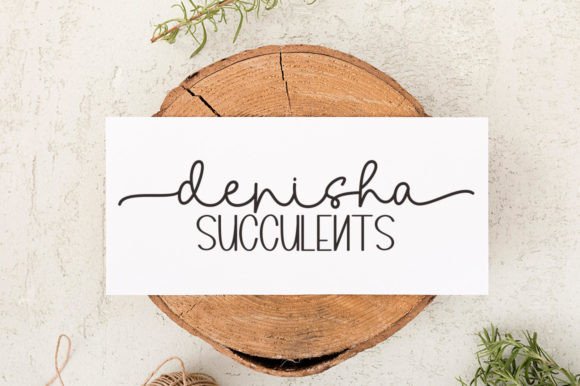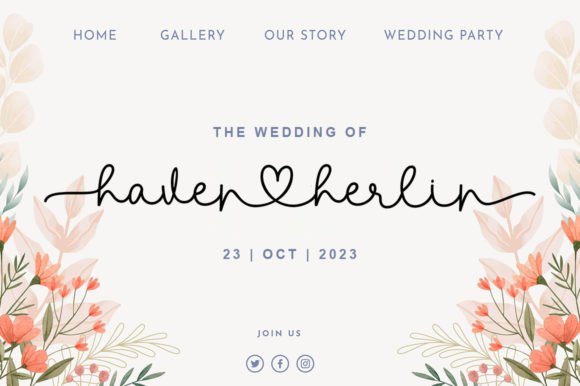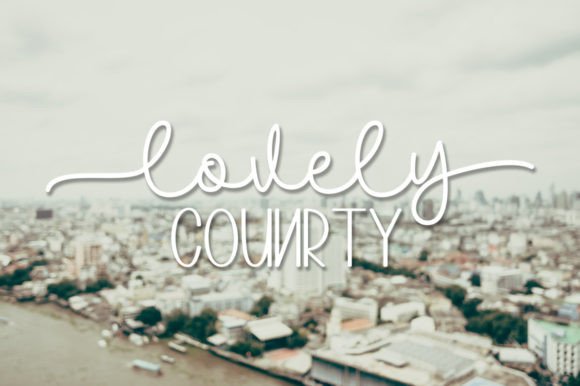
Darling Garden Font
Darling Garden is a stylish and romantic duo font that’s perfect for any project that requires a touch of elegance and sophistication. Its flowing strokes and intricate details create a sense of whimsy and charm, making it ideal for wedding invitations, love letters, and other romantic-themed designs. Let its beauty enchant your creations.